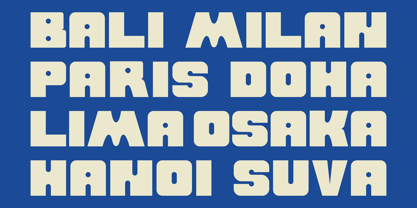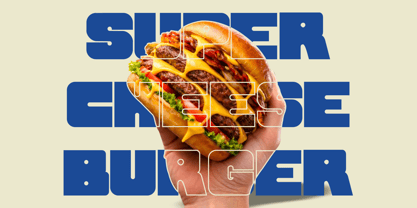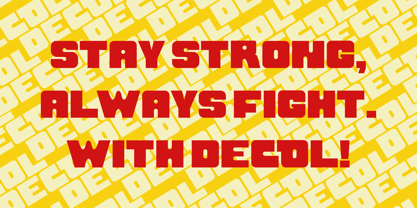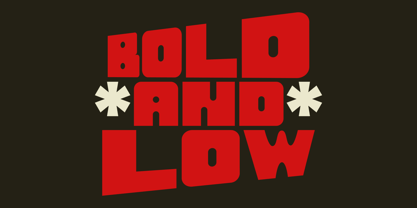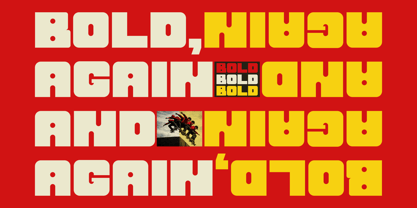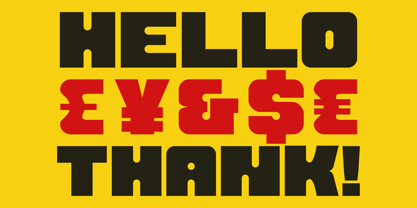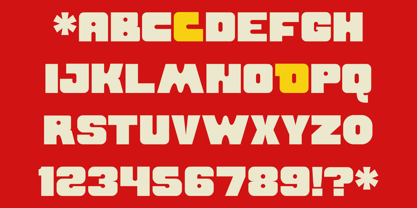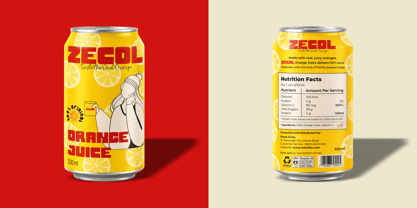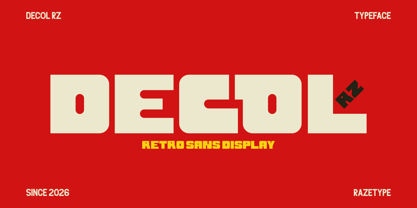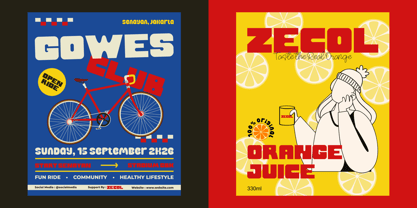
Decol Rz
DECOL RZ is a bold retro sans-serif display typeface built on strong geometric foundations, featuring thick, uniform strokes and smoothly rounded edges that create a balance between solidity and visual warmth. Its letterforms are wide and compact, with tight spacing that enhances cohesion and reinforces a dense, impactful appearance. Subtle stylistic details—such as distinctive inner counters and controlled curves—add character while maintaining clarity and legibility. Inspired by vintage design aesthetics, particularly from mid-to-late 20th century visual culture, the typeface delivers a nostalgic tone without compromising modern precision. Its clean execution and structured forms allow it to adapt effectively across contemporary design contexts. DECOL RZ is especially well-suited for high-impact applications such as posters, branding, packaging, and headlines, where a strong, confident, and memorable typographic presence is essential.